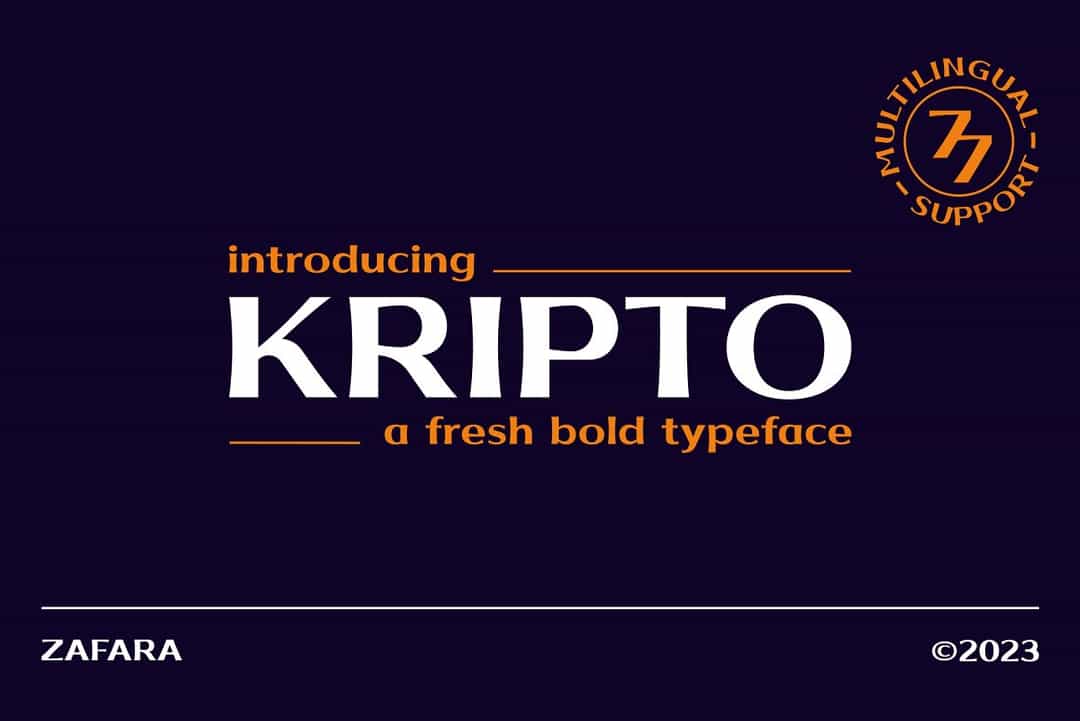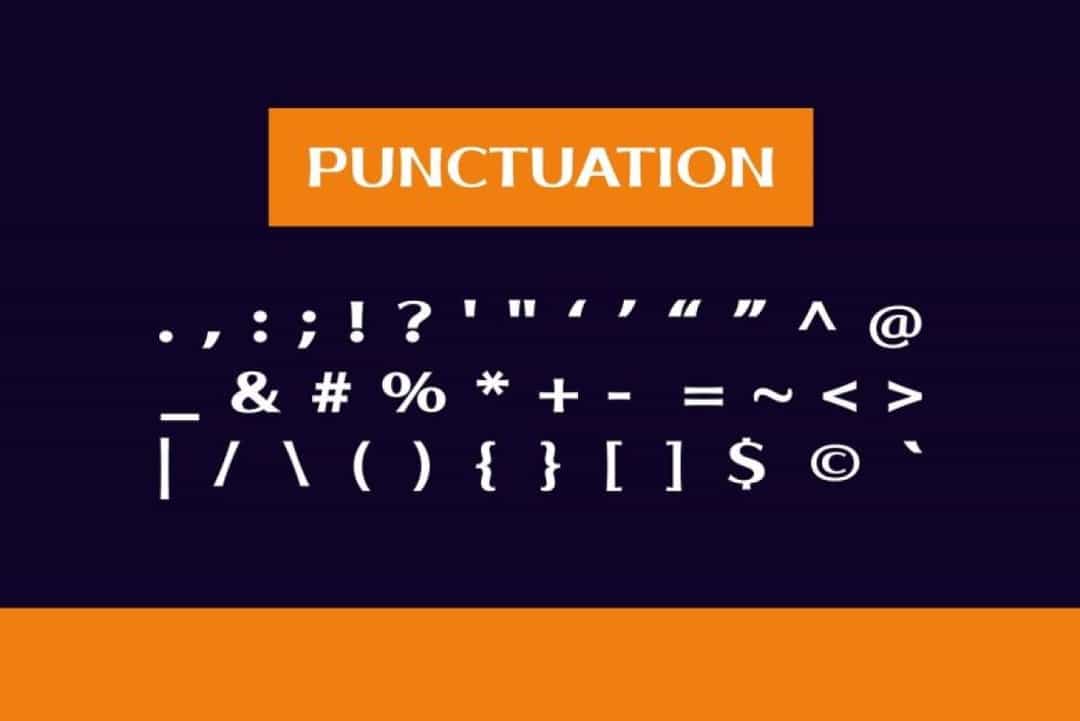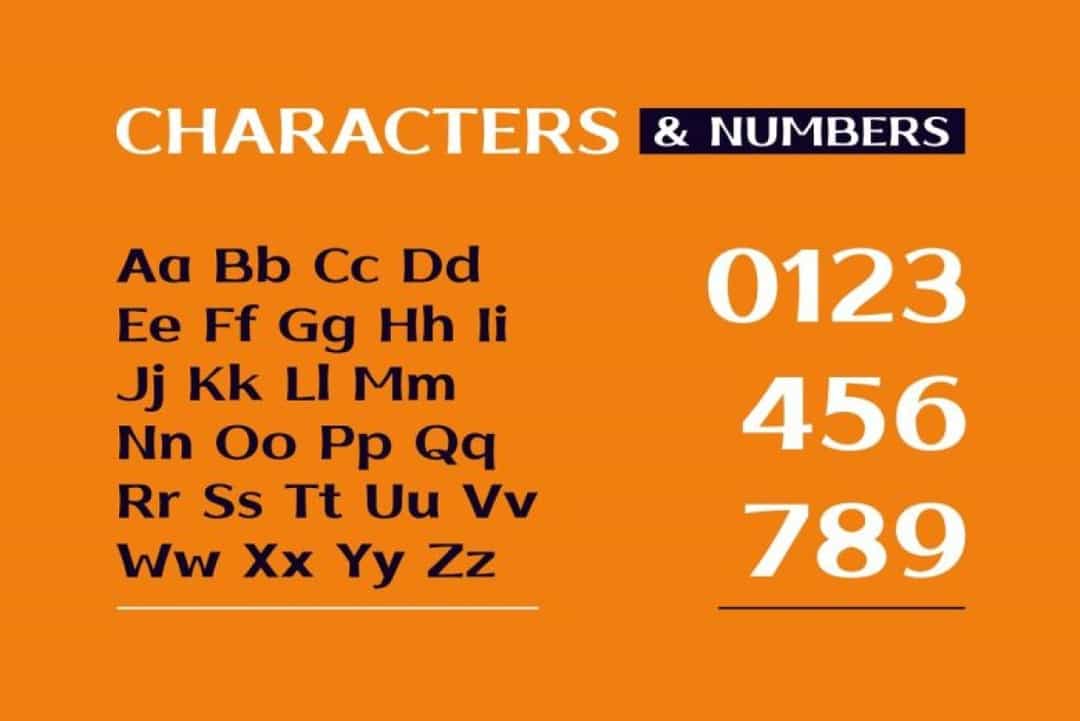
Kripto font is a large and bold font designed to evoke bold and wide spaces. Fonts can be utilized for many different applications depending on their features and desired tonality. Applications could range from titles and headlines for calls-to-action branding logos for power authority innovation modernity signage displays packaging social media graphics as well as playful signage display packaging graphics social media graphics and more.